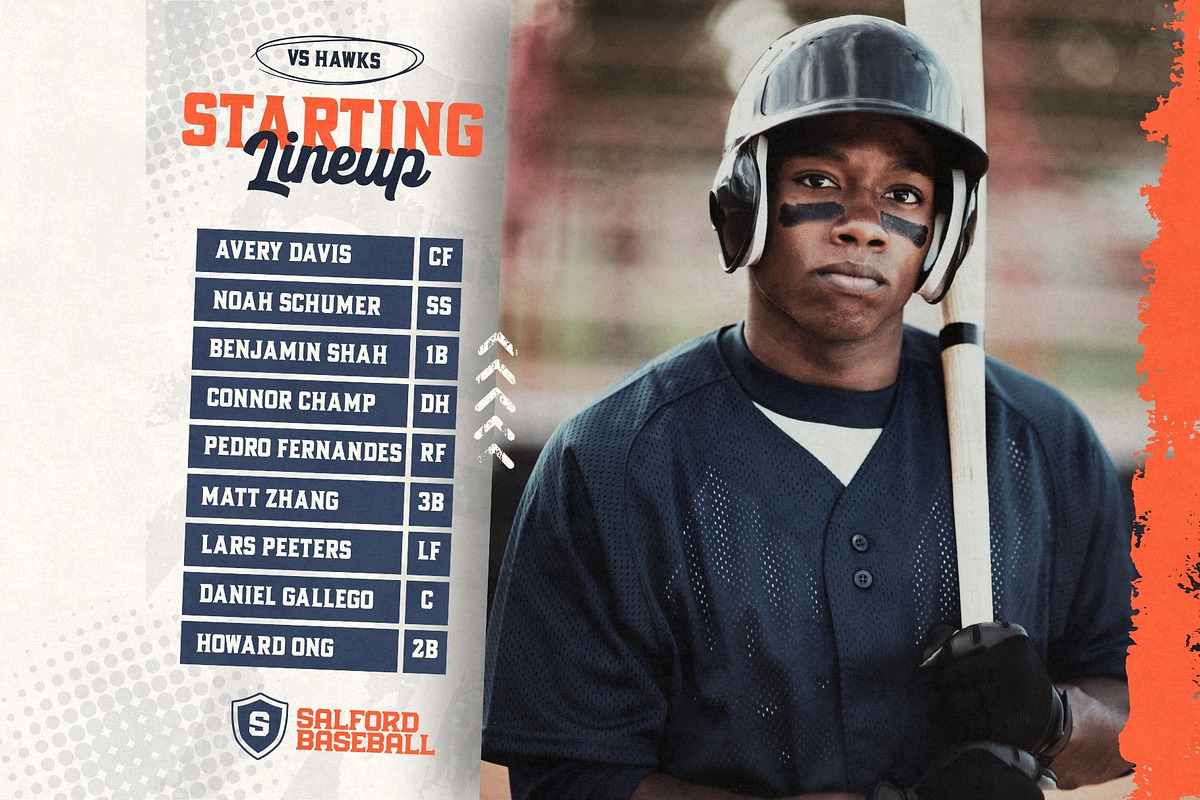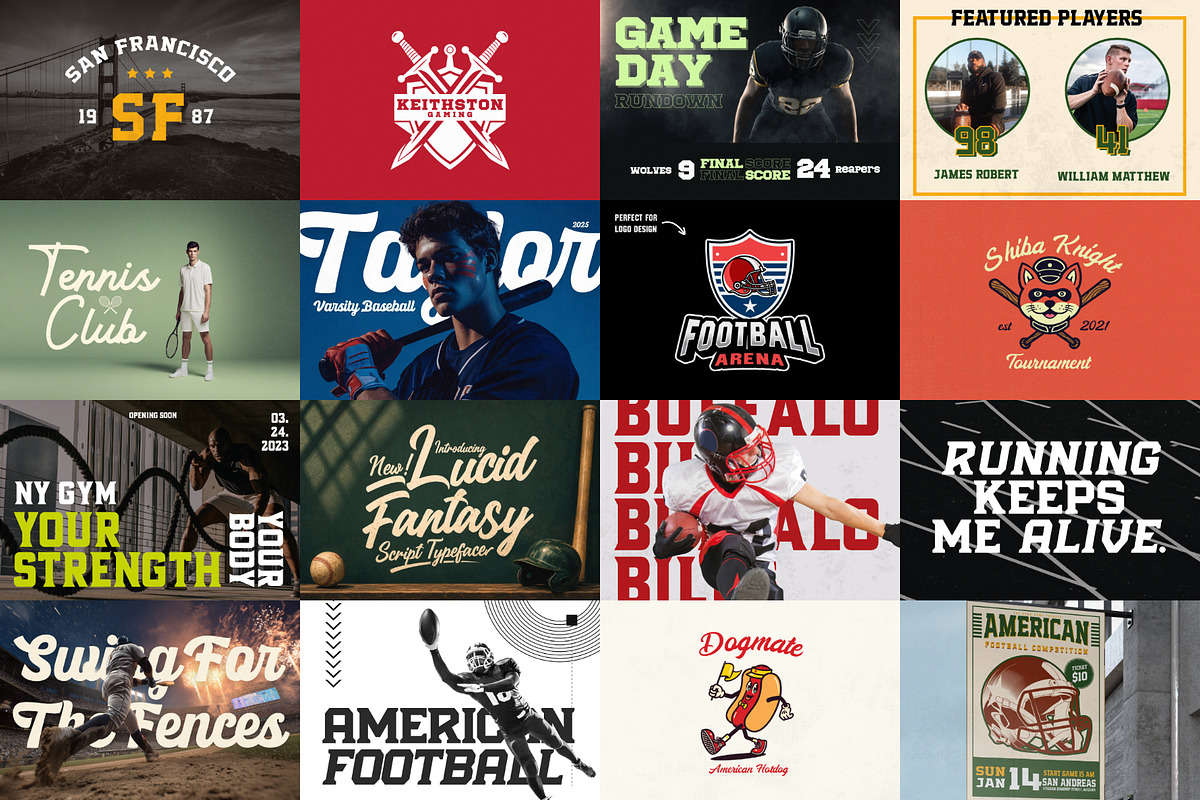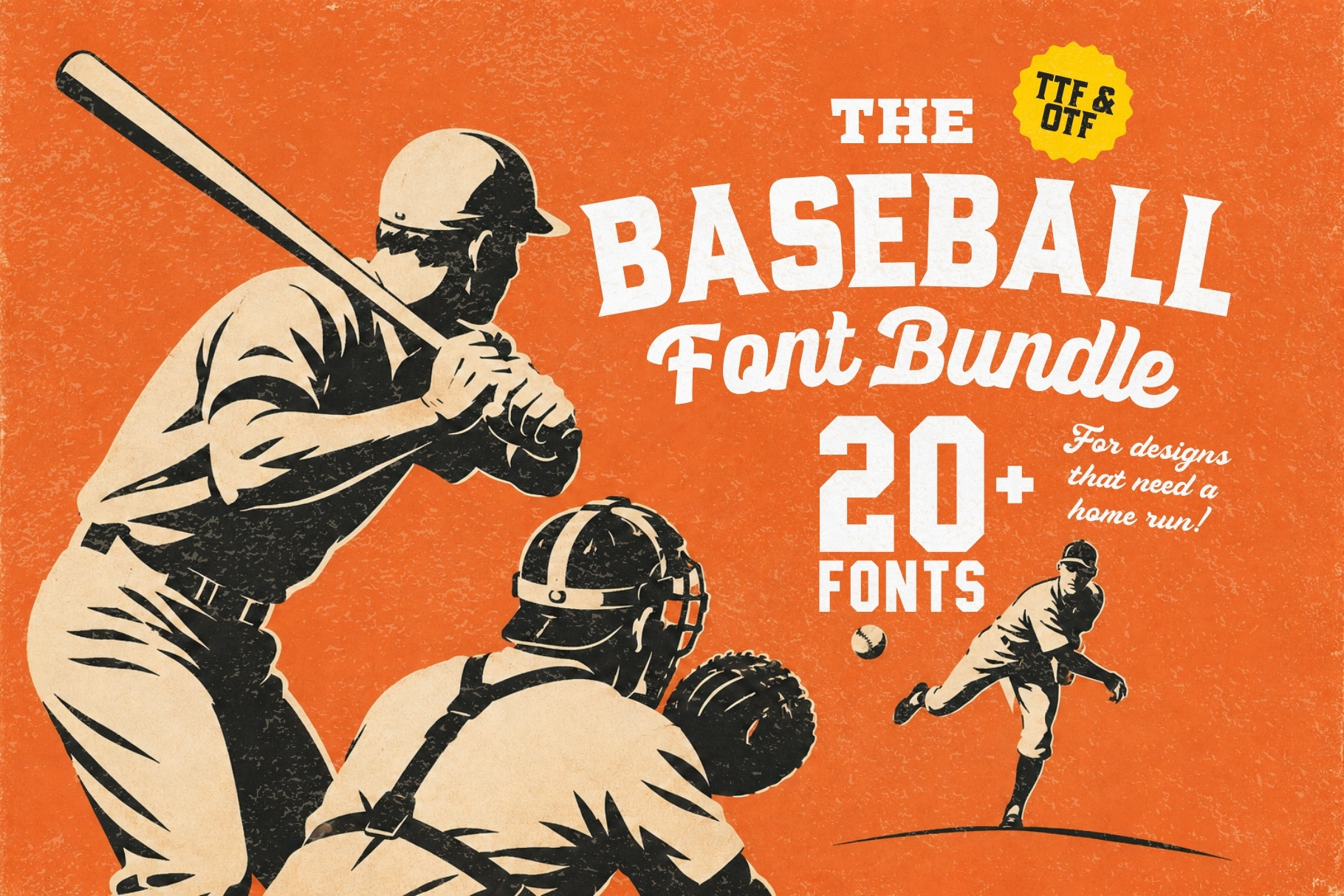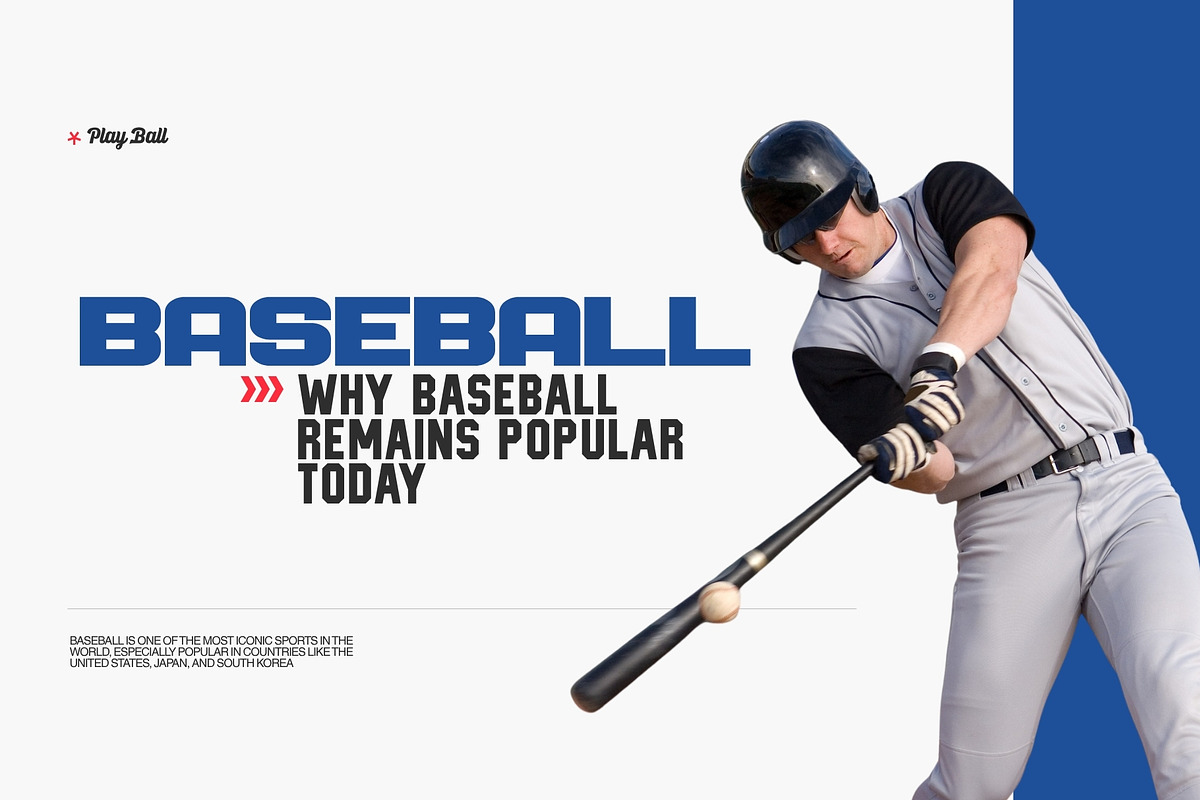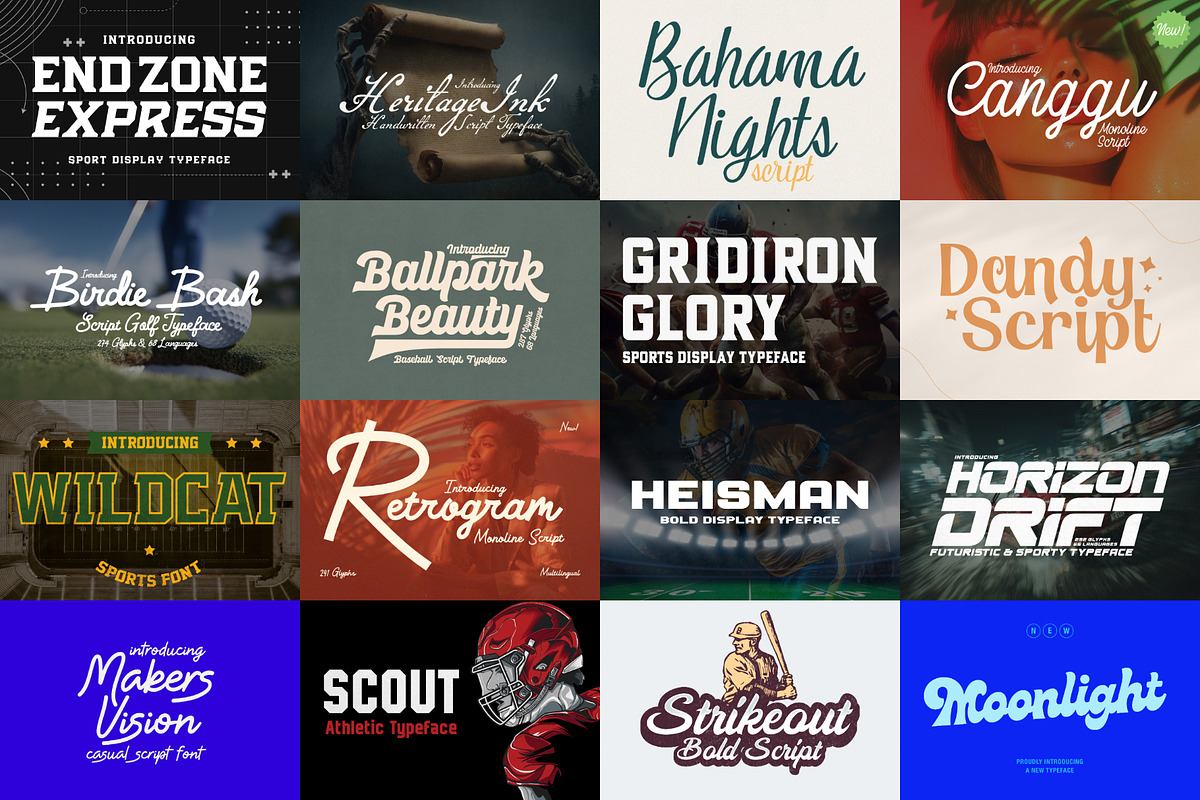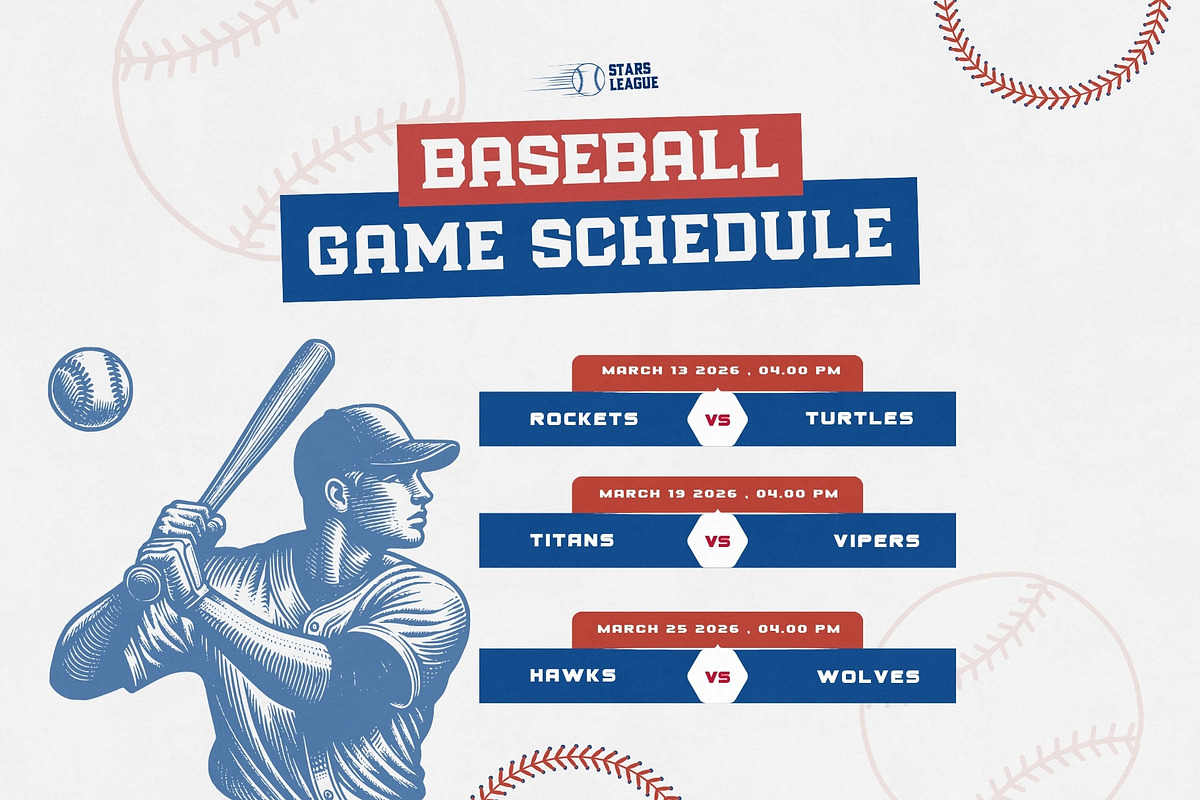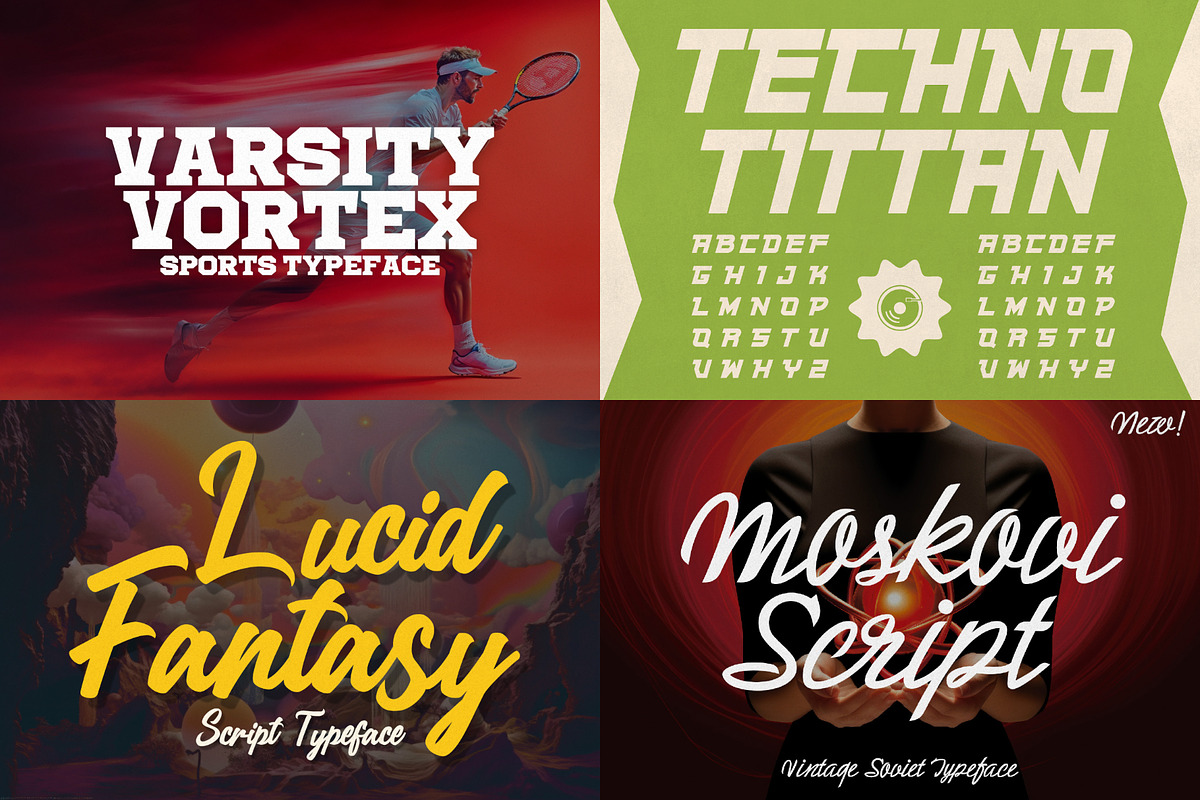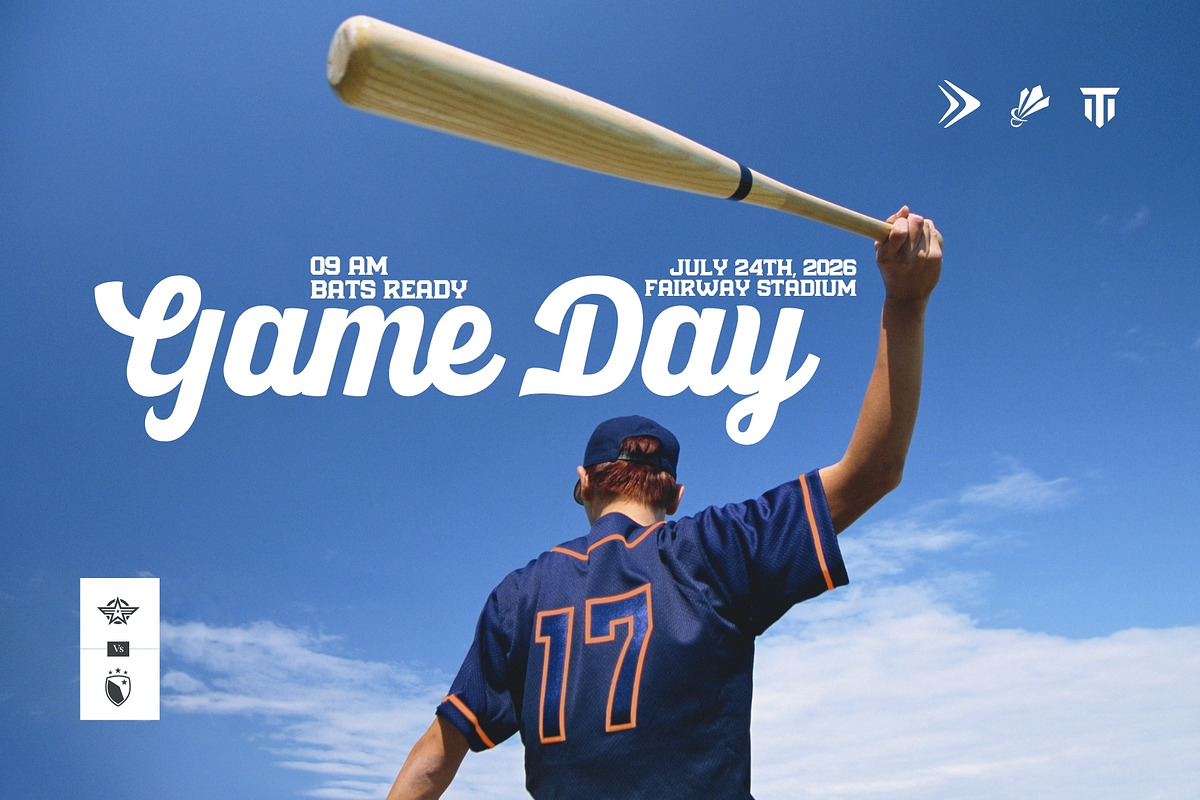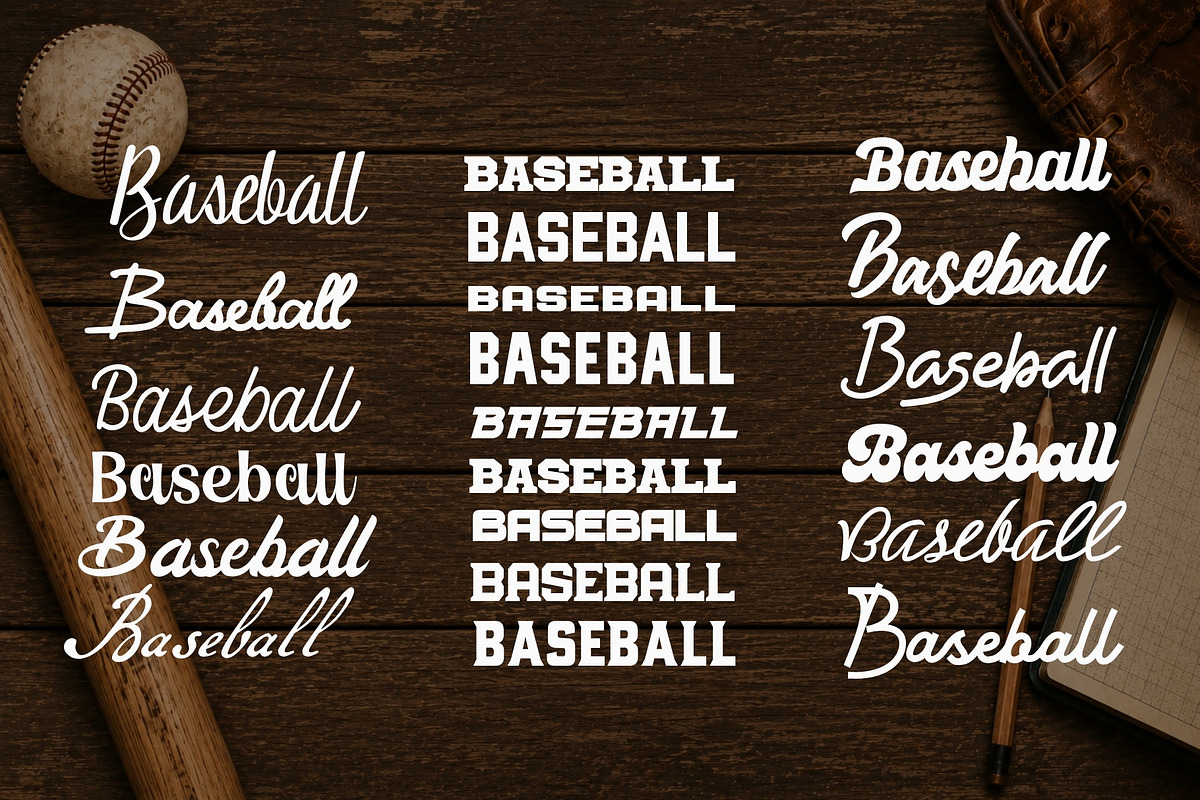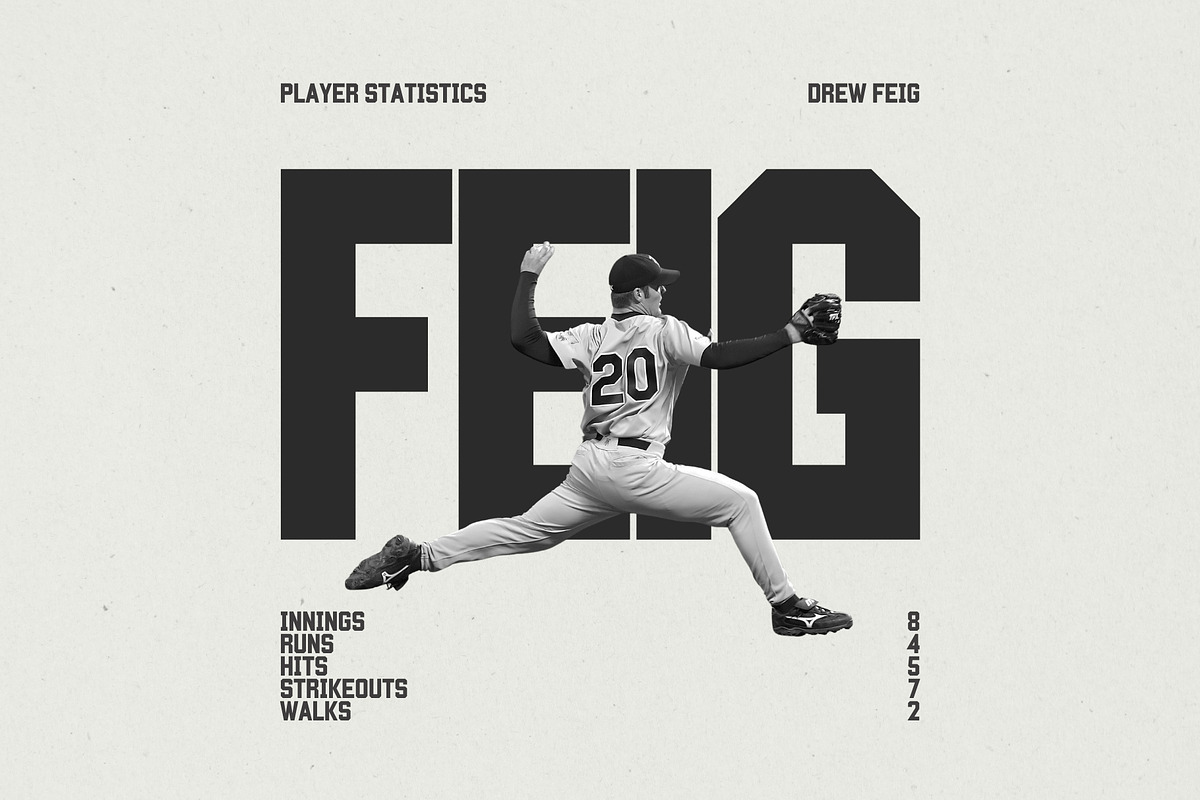
Baseball Font Bundle - 20 Fonts!
Step up to the plate with the Baseball Font Bundle, a powerful collection of 20 professionally crafted fonts inspired by the rich visual history of America's favorite pastime. Featuring a winning lineup of sans serifs, slab serifs, and vintage script fonts, this collection gives designers everything they need to create authentic baseball-themed artwork with confidence.
From classic ballpark nostalgia and vintage league branding to modern athletic graphics and bold team identities, these fonts capture the spirit, tradition, and excitement of the game. Whether you're designing for youth leagues, school teams, sports apparel brands, tournaments, or baseball enthusiasts, this bundle delivers endless creative possibilities.
Perfect for logos, t-shirts, jerseys, team schedules, scorecards, promotional materials, banners, social media graphics, posters, merchandise, stickers, signage, YouTube thumbnails, fundraising campaigns, and sports-themed branding.
Inside you'll discover elegant vintage scripts reminiscent of historic ball clubs, bold slab serifs inspired by classic scoreboards, timeless athletic lettering, and versatile modern typefaces that work across both print and digital projects.
**Bundle Features: **
20 Premium Baseball-Inspired Fonts
Sans Serif, Serif, Slab Serif & Script Styles
Perfect for Sports Branding & Apparel
Ideal for Logos, Merch & Team Graphics
Professional Quality Lettering
Easy to Mix and Match
Whether you're building a championship logo, creating custom team merchandise, or designing promotional graphics that stand out from the crowd, this bundle gives you the typography tools to knock every project out of the park.